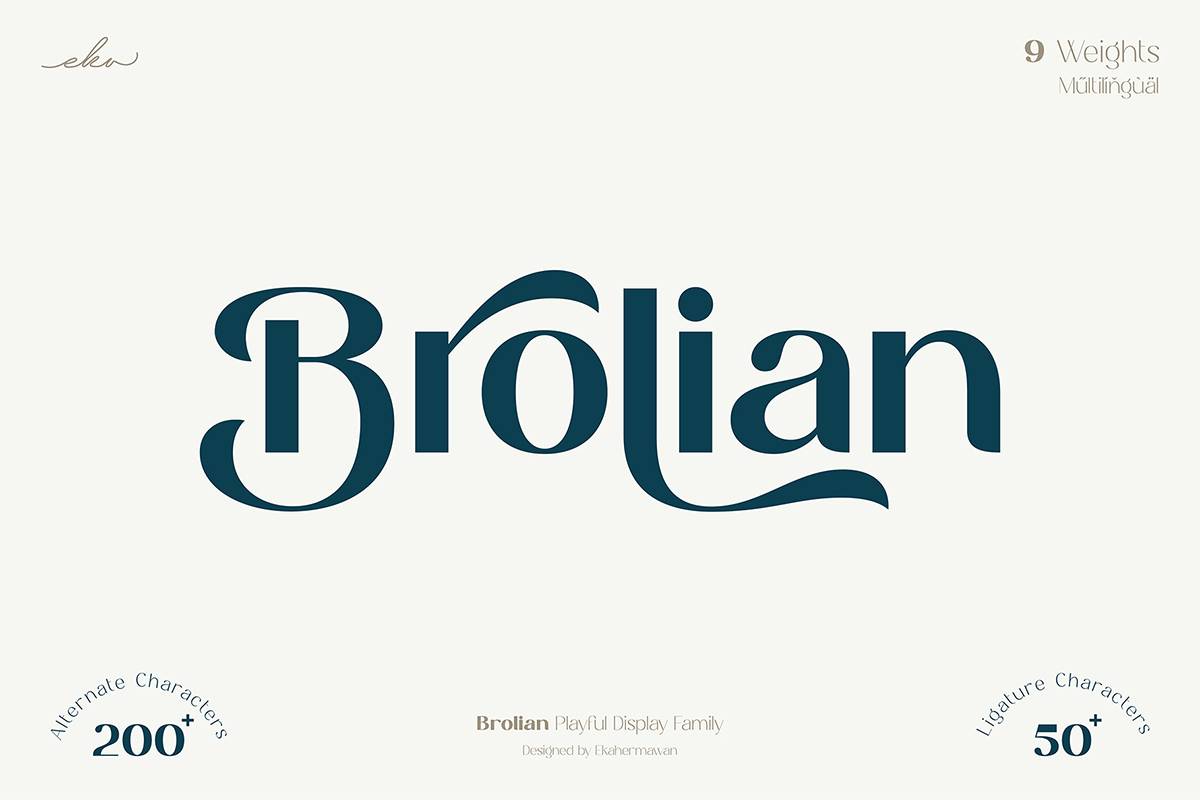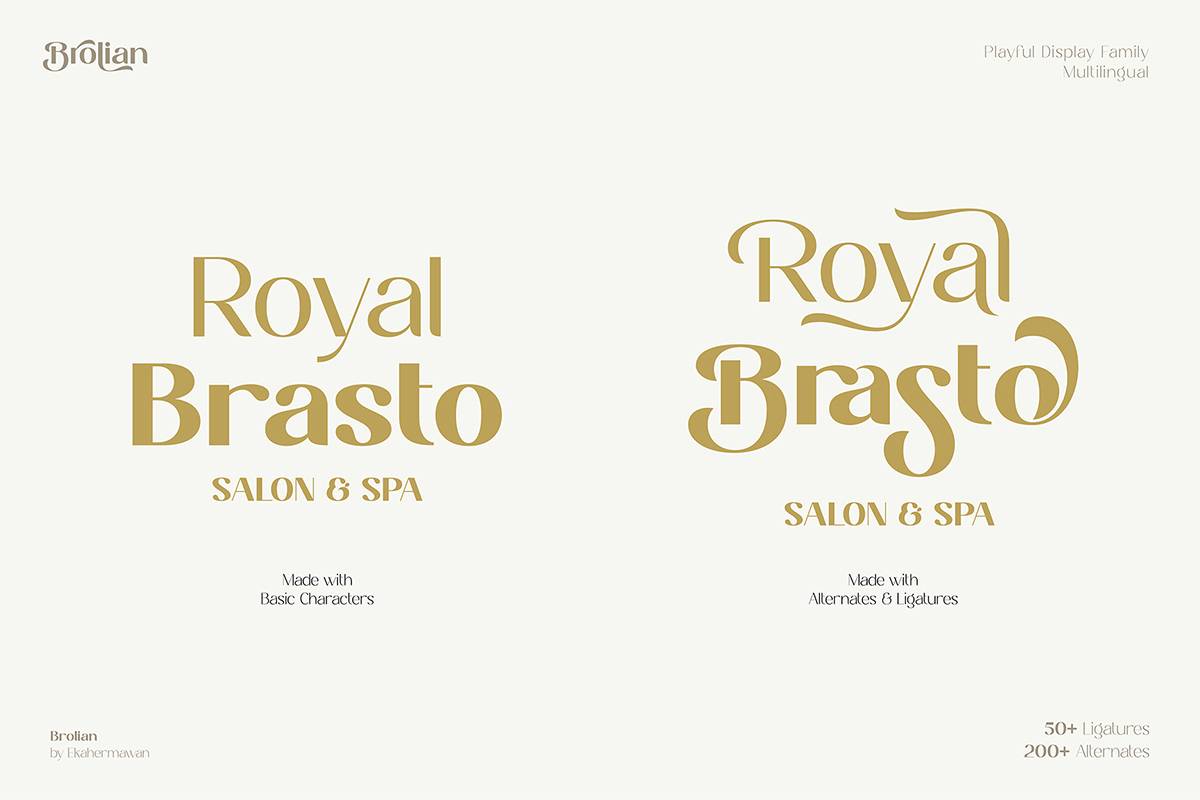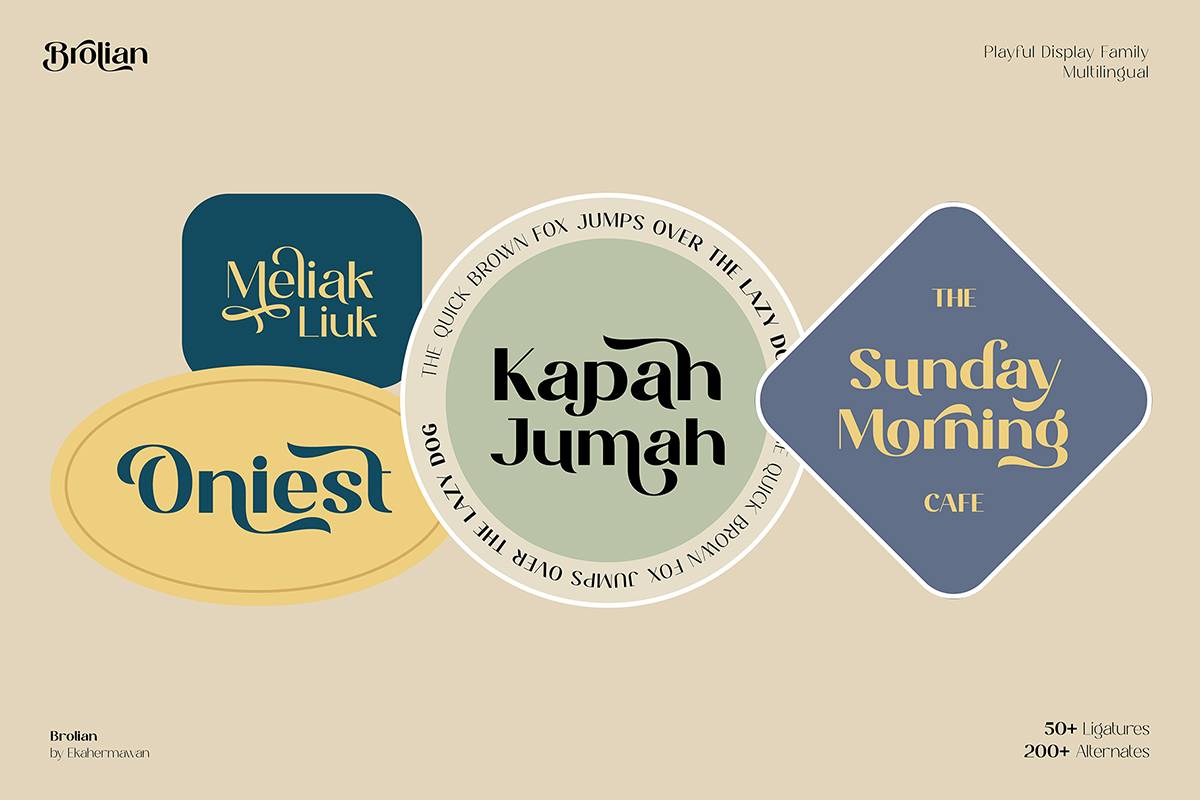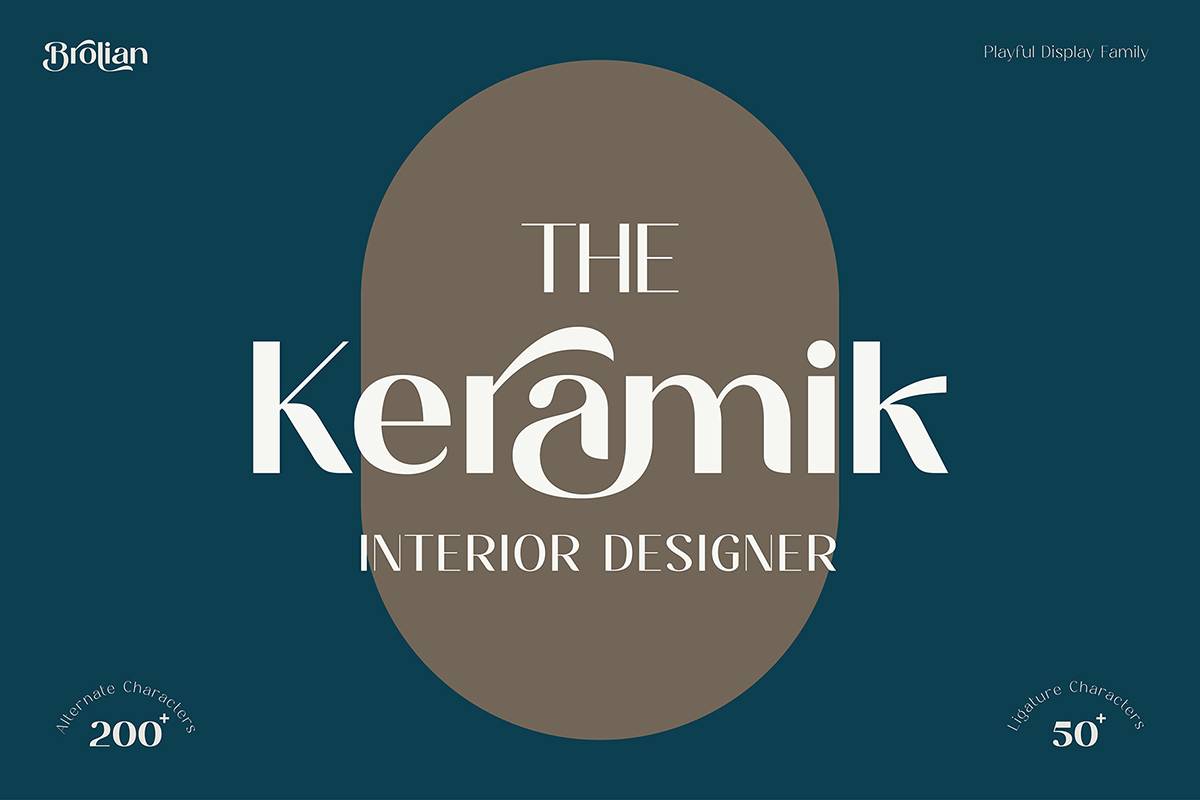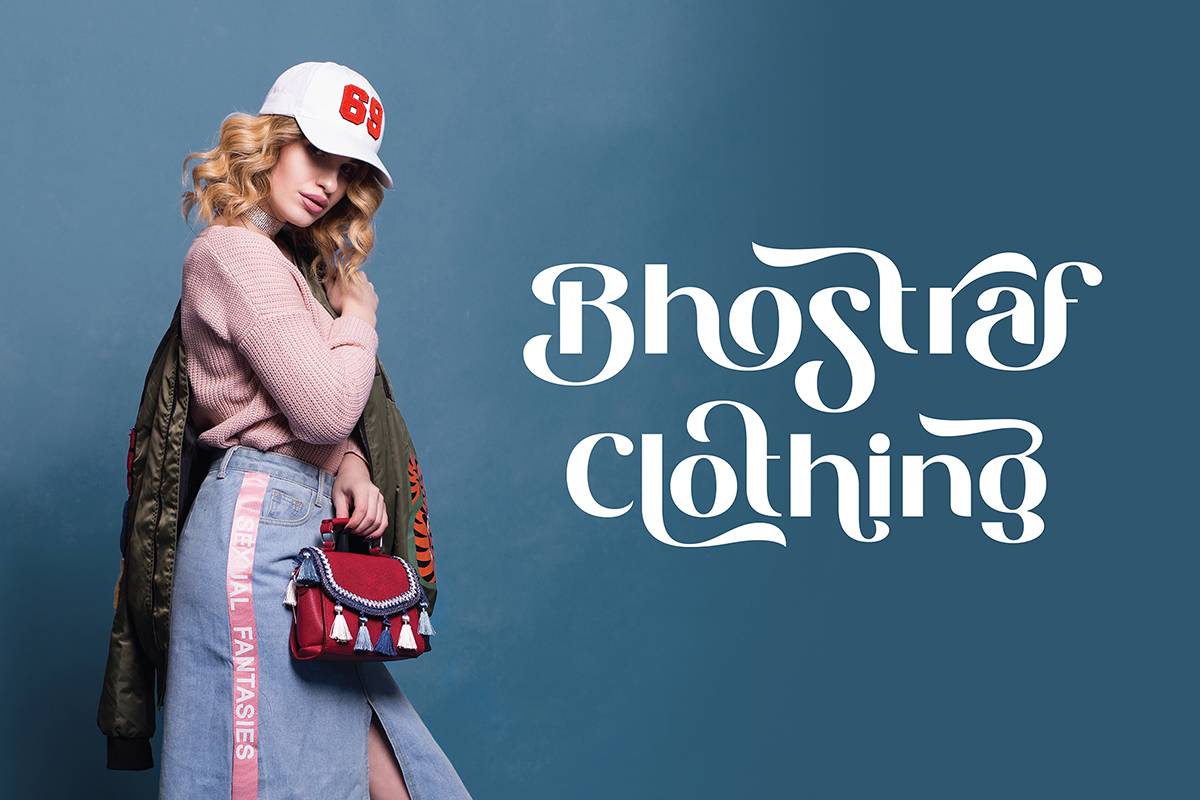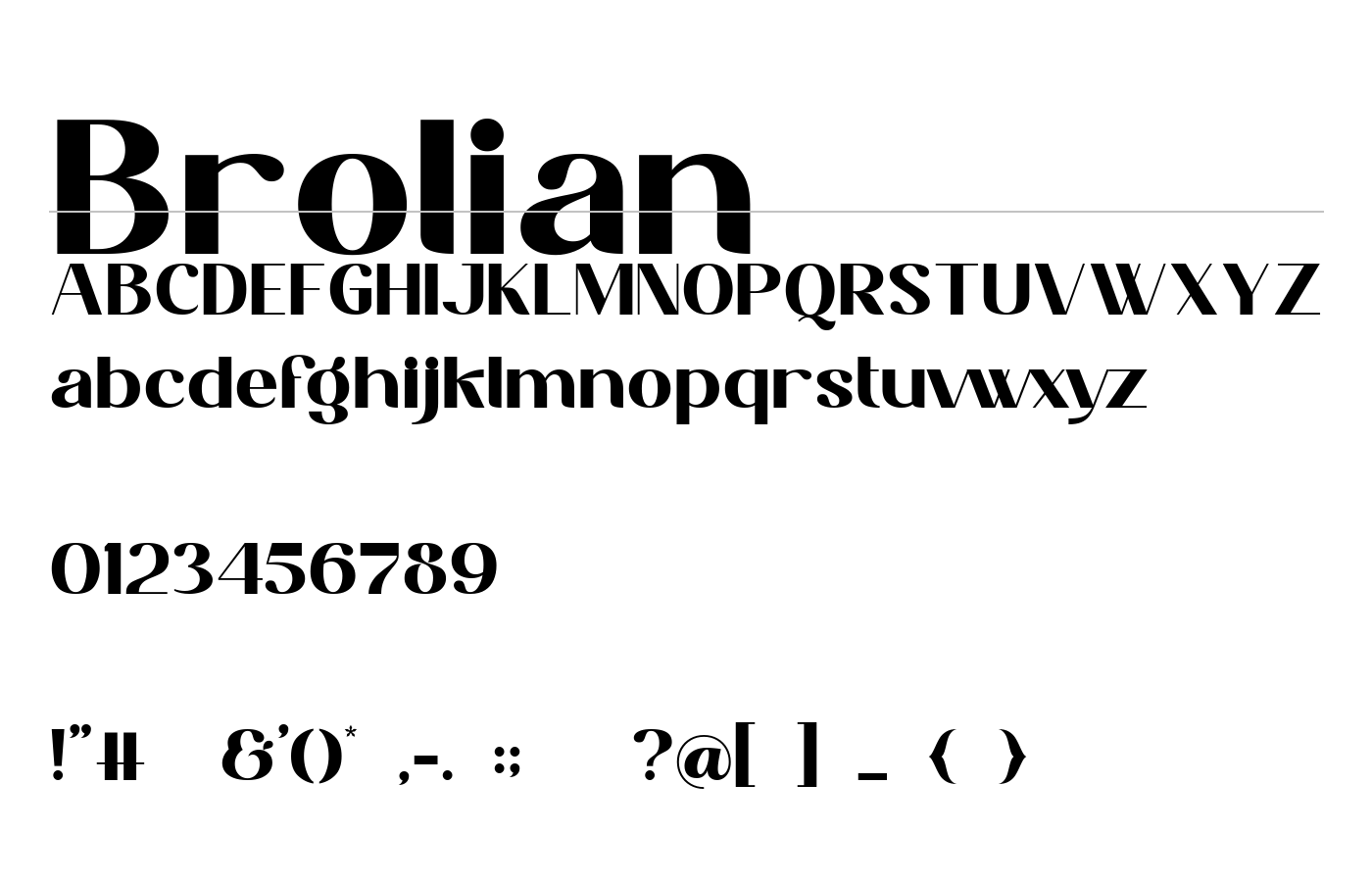
Brolian is a bold serif font with strong contrast between thick and thin strokes, featuring sharp, geometric serifs and elegant letterforms that combine classic sophistication with a modern twist. Its high x-height and unique shapes in characters like the single-story ‘a’ and distinctive ampersand give it a luxurious and authoritative feel, making it ideal for branding, editorial headlines, and packaging where style and readability are key. This font works well for fashion, luxury brands, and any design seeking a refined yet confident voice.
Brolian Font
About Brolian Font
| Font family | Brolian Font |
| Release date | 2021-02-24 |
| Designer | Putu Eka Hermawan |